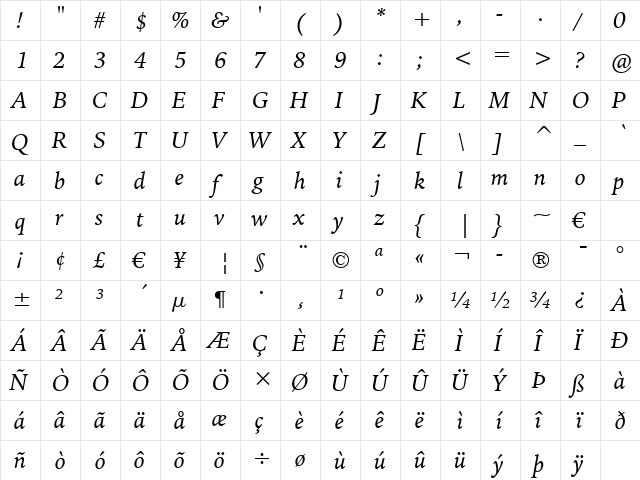
IowanOldSt BT Italic Font Preview
IowanOldSt BT Italic
IowanOldSt BT Italic Font Details
Design Context for IowanOldSt BT Typeface
IowanOldSt BT is a composed and adaptable typeface that performs quietly and consistently across a wide range of design contexts. The slanted form adds forward momentum and visual energy.
Pro Tip: Try IowanOldSt BT for annotation and caption copy alongside an upright companion — the contrast in angle creates a dynamic but ordered typographic system.